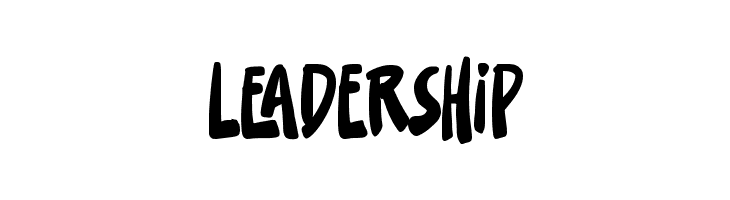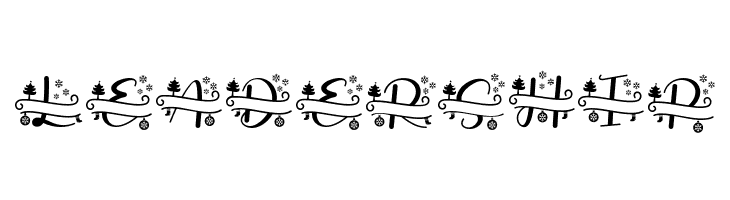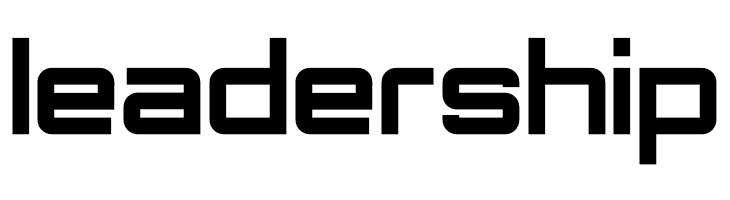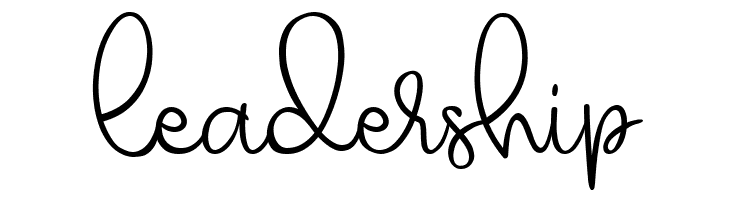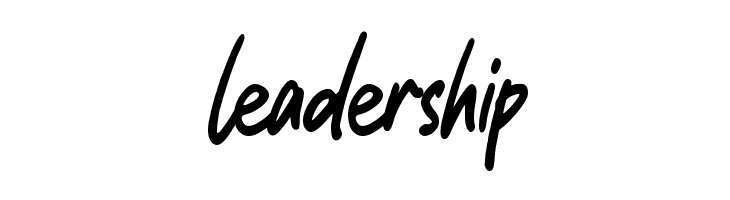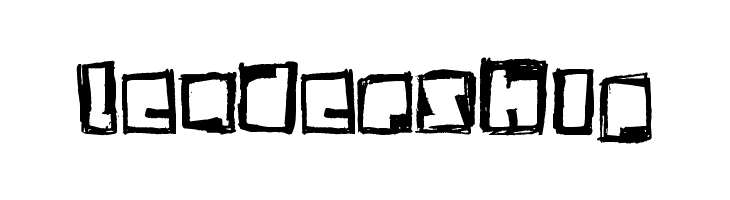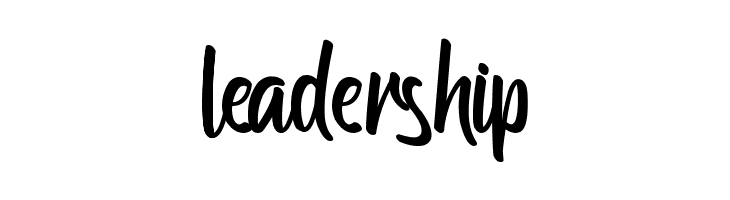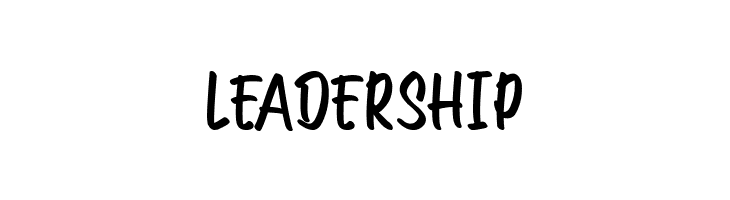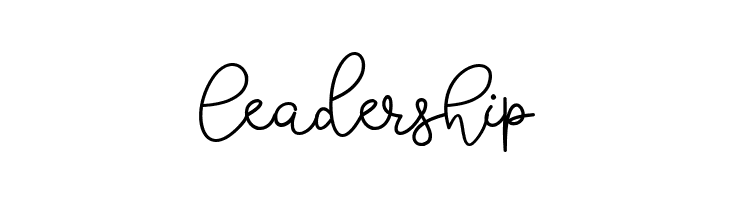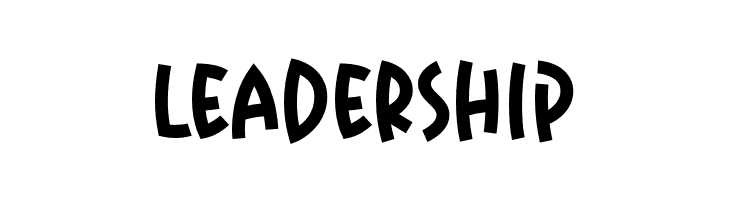
A playful, bold, and hand-drawn style font with a whimsical feel.
A playful, bold, and hand-drawn style font with rounded strokes.
A decorative font filled with stars, offering a playful and whimsical style.
A bold, dynamic handwritten font with expressive strokes and playful curves.
A playful and elegant script font with flowing cursive letterforms.
A bold, expressive brush-style font with dynamic, textured strokes.
A classic serif font with elegant strokes and a modern twist.
Bold, retro decorative font.
A distressed serif font with a textured, weathered appearance.
A whimsical, hand-drawn style font with bold, irregular strokes.
A playful, handwritten-style font with a friendly and informal appearance.
A bold, playful font with a hand-drawn aesthetic and high contrast.
A bold, playful font with a retro, psychedelic style.
A playful and whimsical font with bold, hand-drawn letterforms.
A bold, brush-style font with dynamic, hand-painted strokes.
A bold, brush-style font with an energetic, street-art vibe.
A bold, playful handwritten font with rounded strokes and a casual style.
A lively and energetic script font with bold, flowing strokes and playful curves.
A bold, italicized font with a geometric and futuristic design.
A modern, geometric font with bold, angular characters.
A bold, distressed font with a textured, grunge appearance.
A whimsical set of stick figures with diverse eye designs as heads.
A geometric, maze-like font with intricate line patterns and a bold, modern style.
A bold, expressive handwritten font with dynamic strokes.
A festive, decorative font with holiday-themed embellishments.
A bold, energetic script font with a hand-drawn, graffiti-like style.
A bold, distressed font with a vintage, grunge appearance.
A playful, bold font with rounded, bubbly characters and a hand-drawn feel.
A playful, handwritten font with fluid strokes and a whimsical style.
A playful, hand-drawn font with tall, narrow letters and a whimsical style.